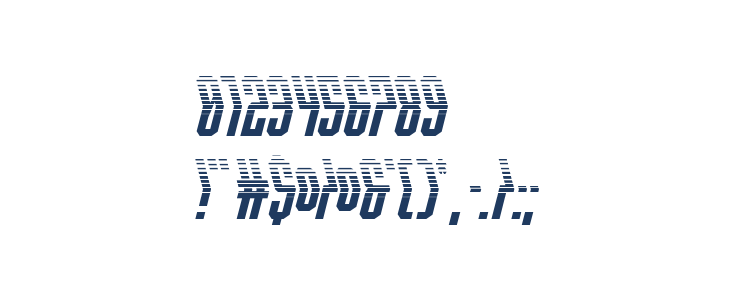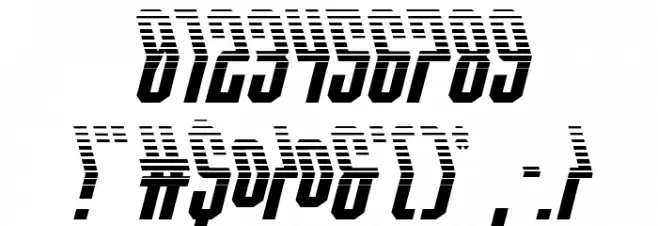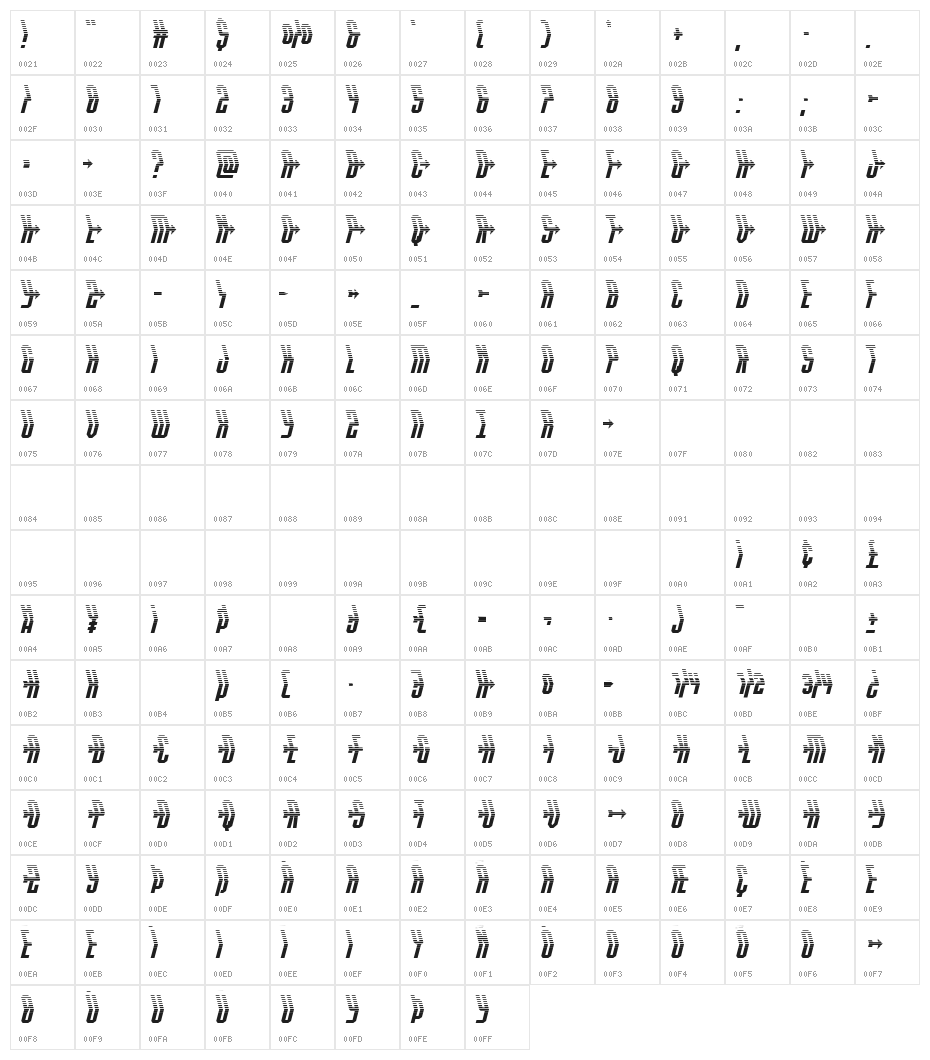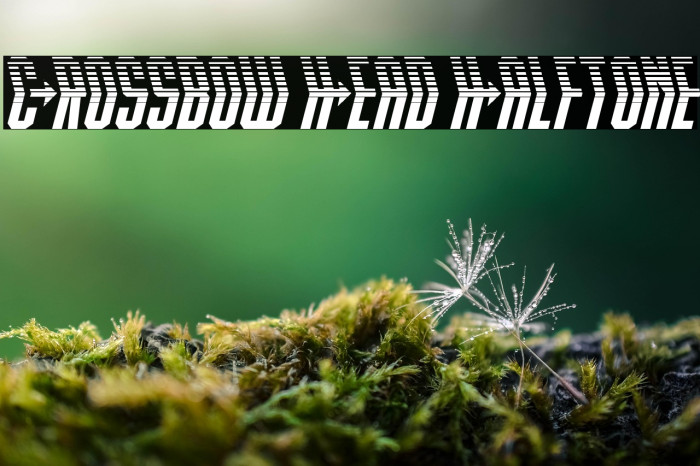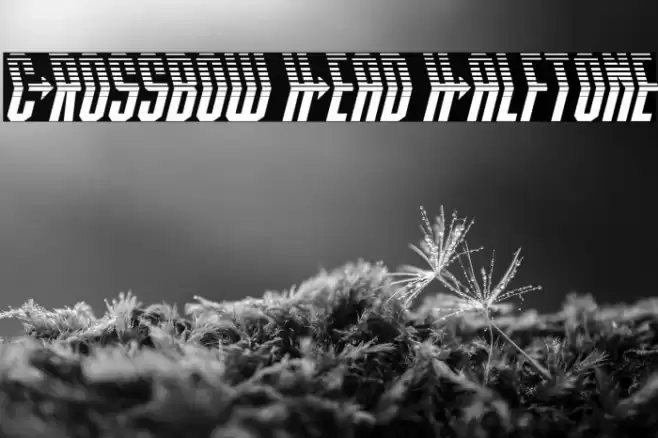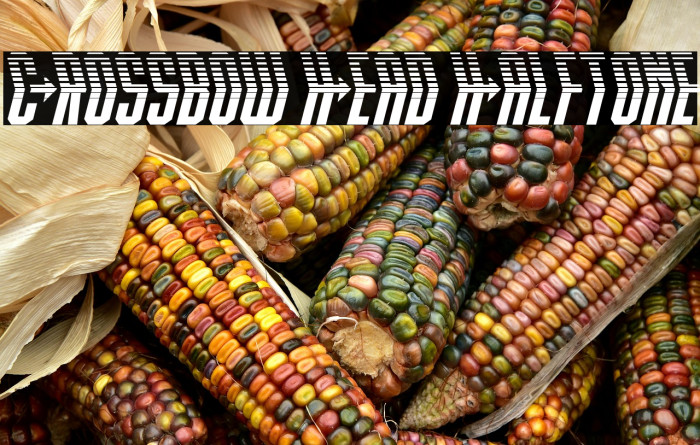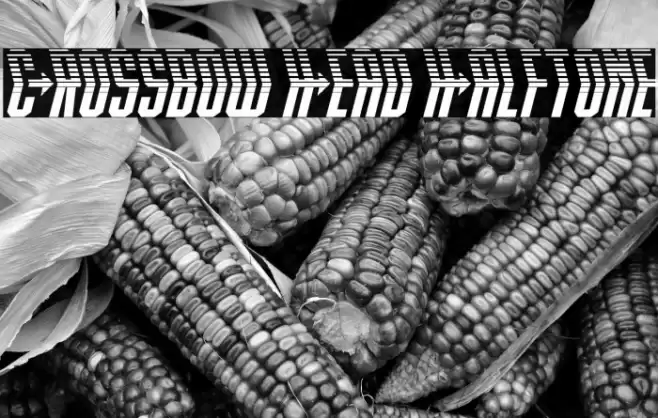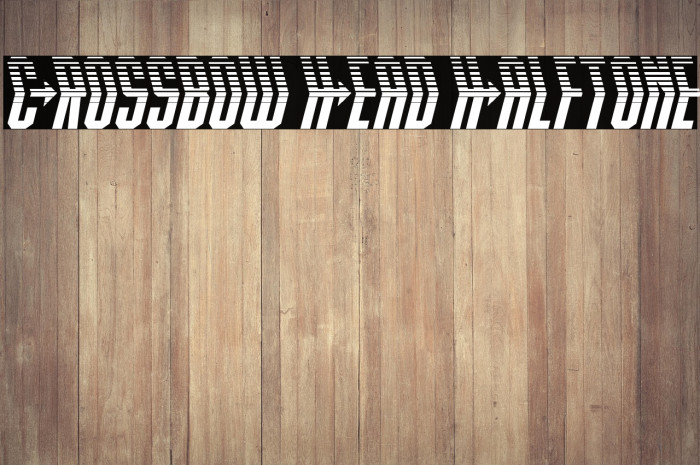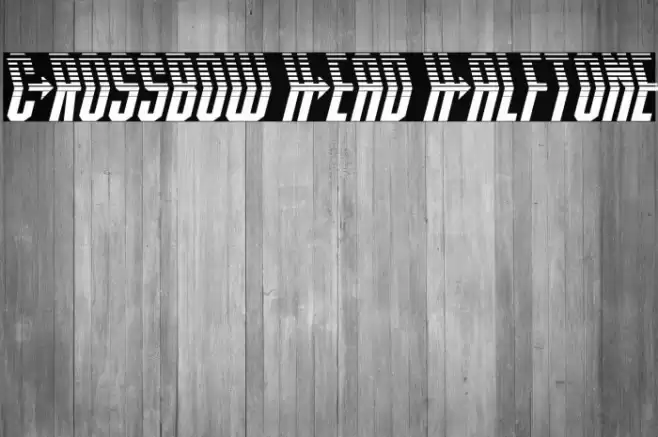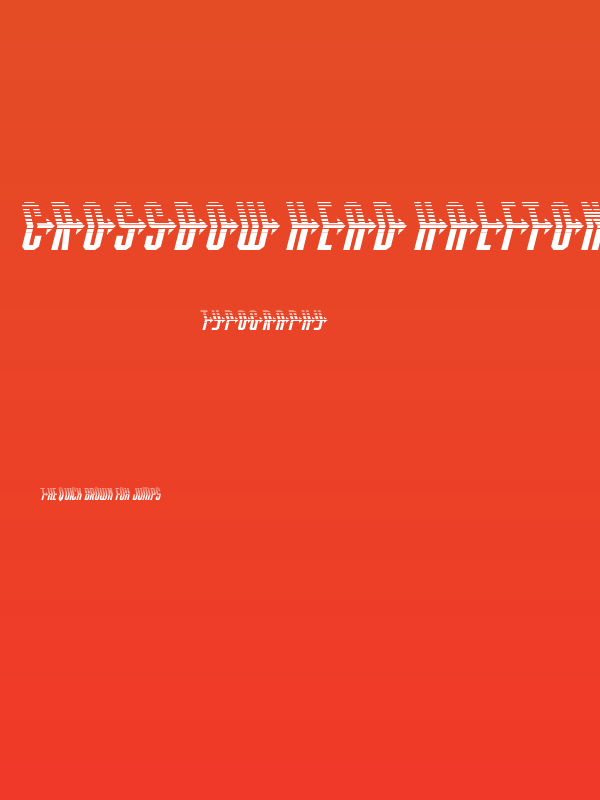
Crossbow Head Halftone Font
Crossbow Head Halftone Description
This font features a bold, dynamic design with a halftone effect that gives it a sense of movement and energy. The characters are constructed with a series of horizontal lines that create a gradient-like appearance, adding depth and texture. The uppercase and lowercase letters maintain a consistent style, with sharp angles and a futuristic aesthetic. The numbers and special characters follow the same design principles, ensuring a cohesive look across all glyphs. This font is ideal for projects that require a modern and edgy feel, such as sports branding, music album covers, or tech-related designs.
| Proposed Projects | Ideal for sports branding, music album covers, tech-related designs, and dynamic posters. |